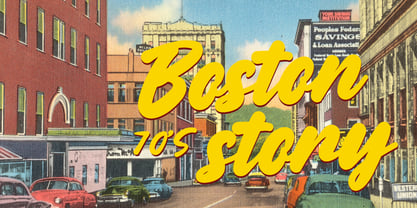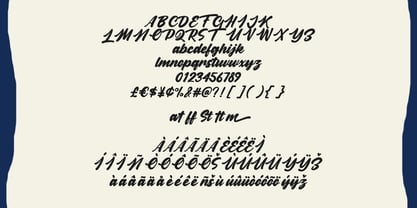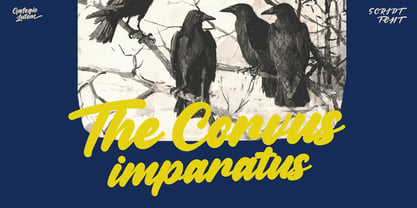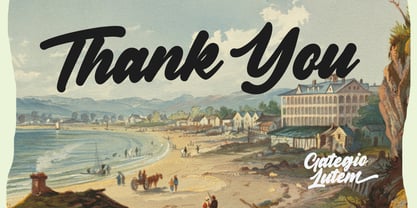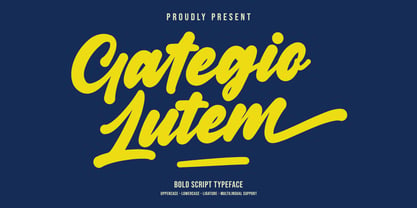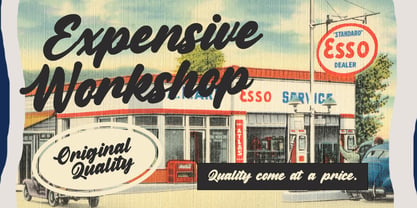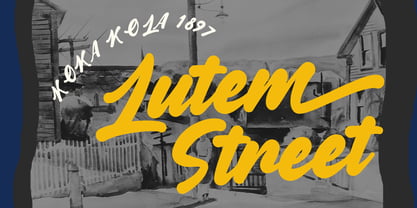
MC Gategio Lutem
by Maulana Creative
The MC Gategio Lutem Font Family was designed by Gilang Maulana and published by Maulana Creative. MC Gategio Lutem contains 1 styles. More about this family
Gategio Lutem script handmade brush bold display font, fun character with alternate and ligatures. To give you an extra creative work. Gategio Lutem handmade brush display font support multilingual language.